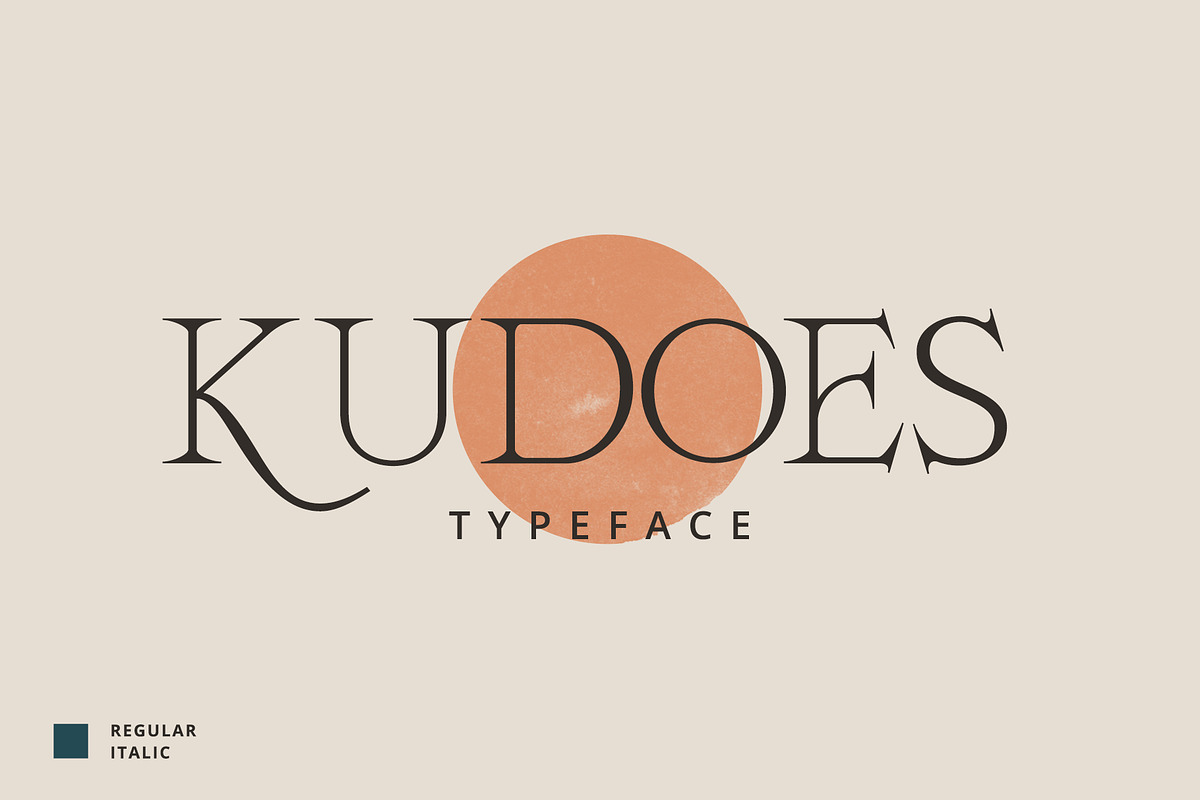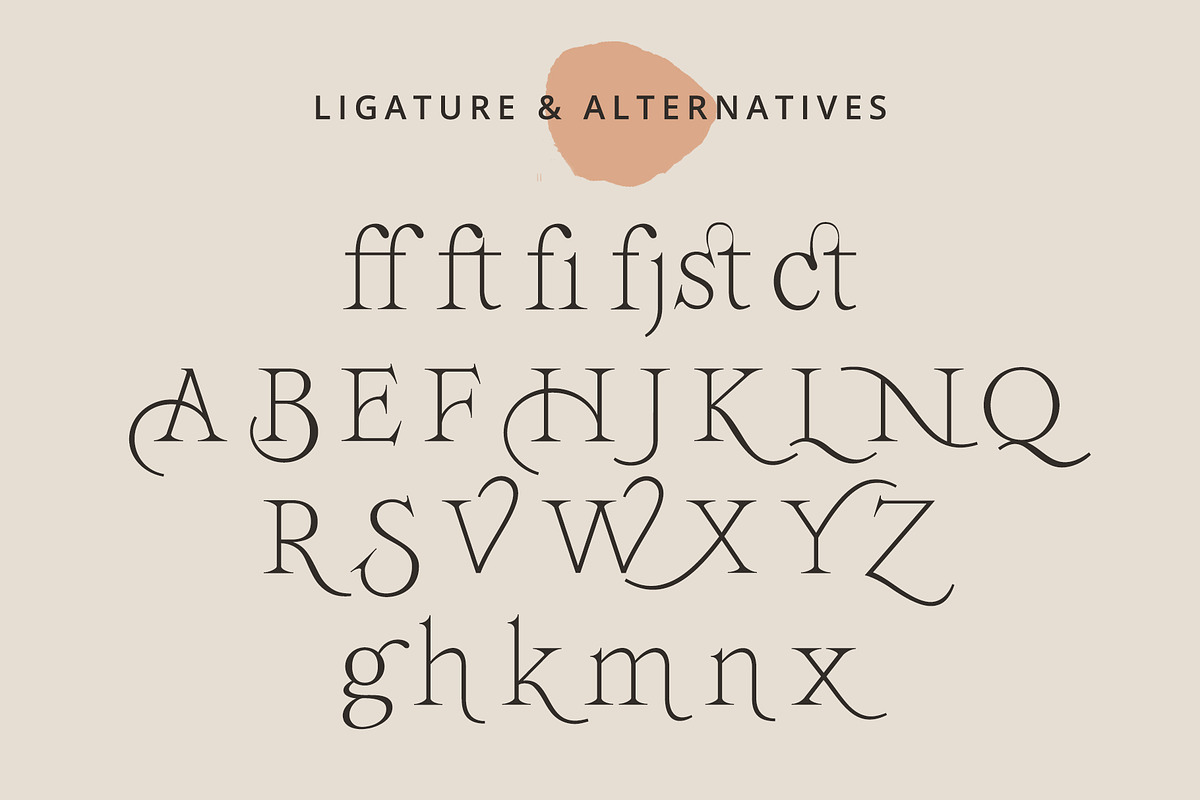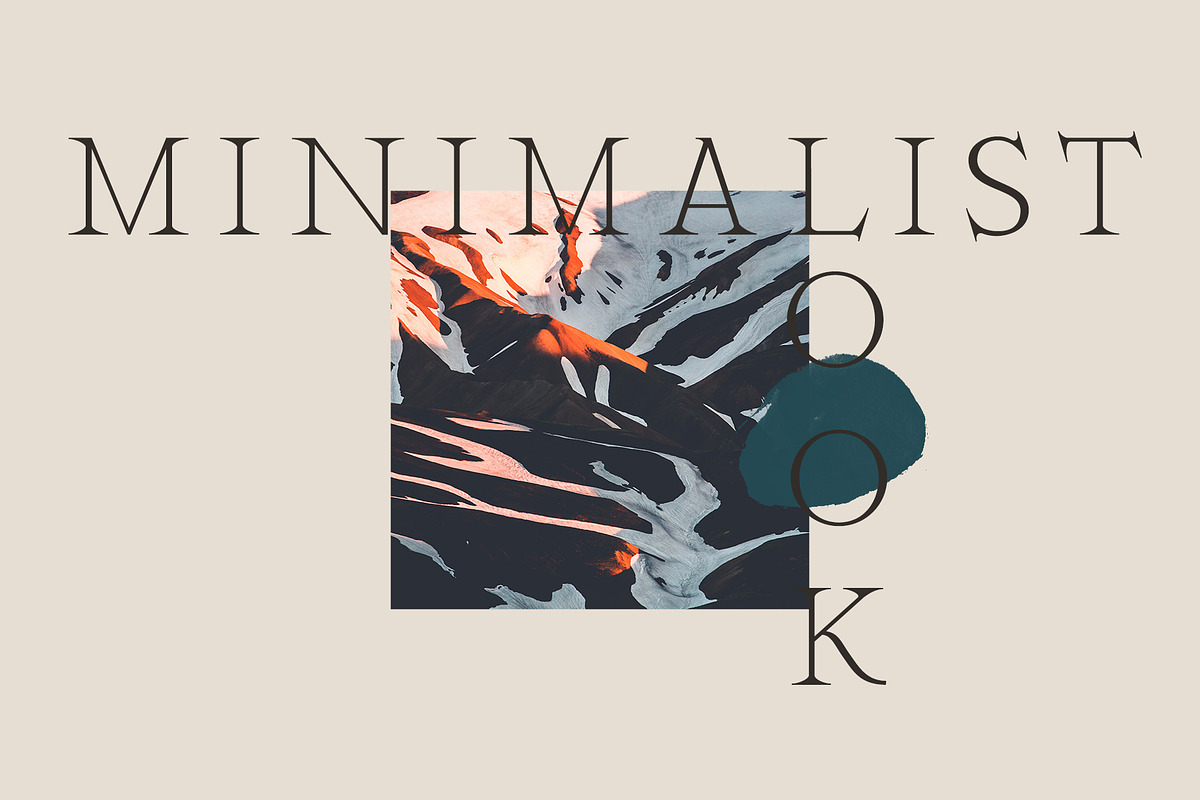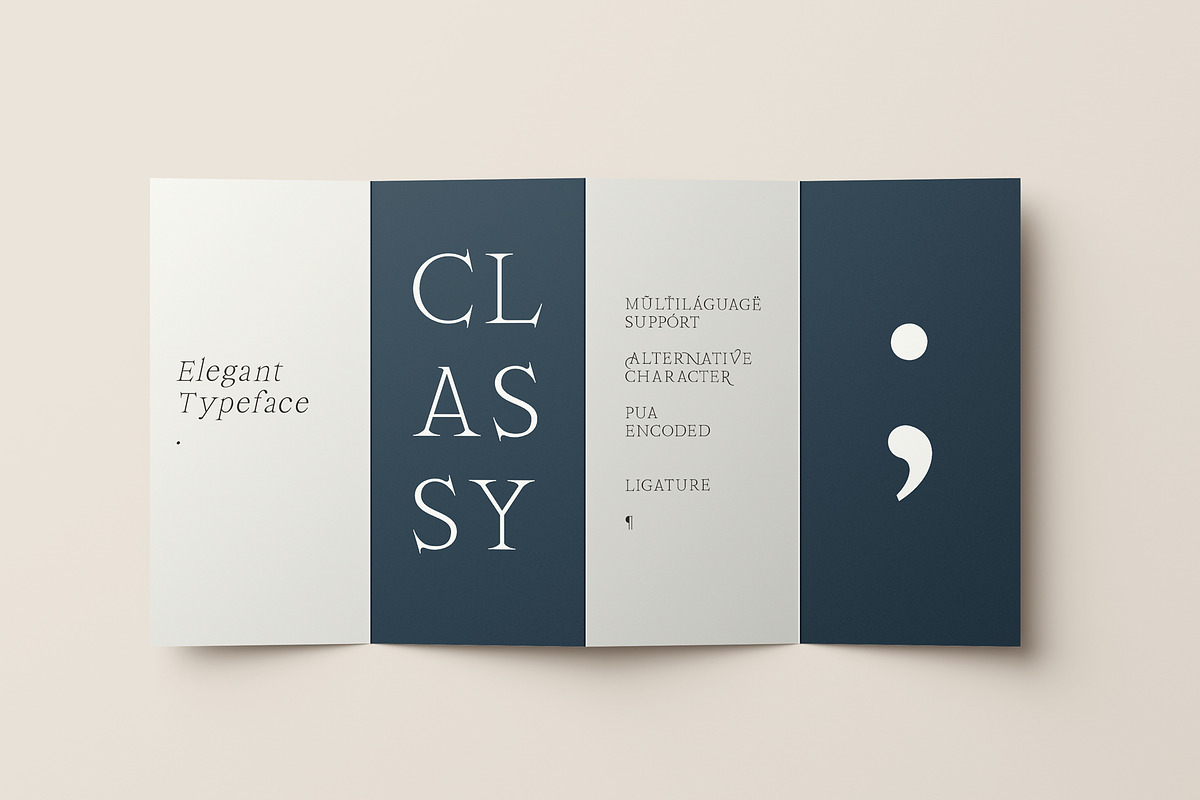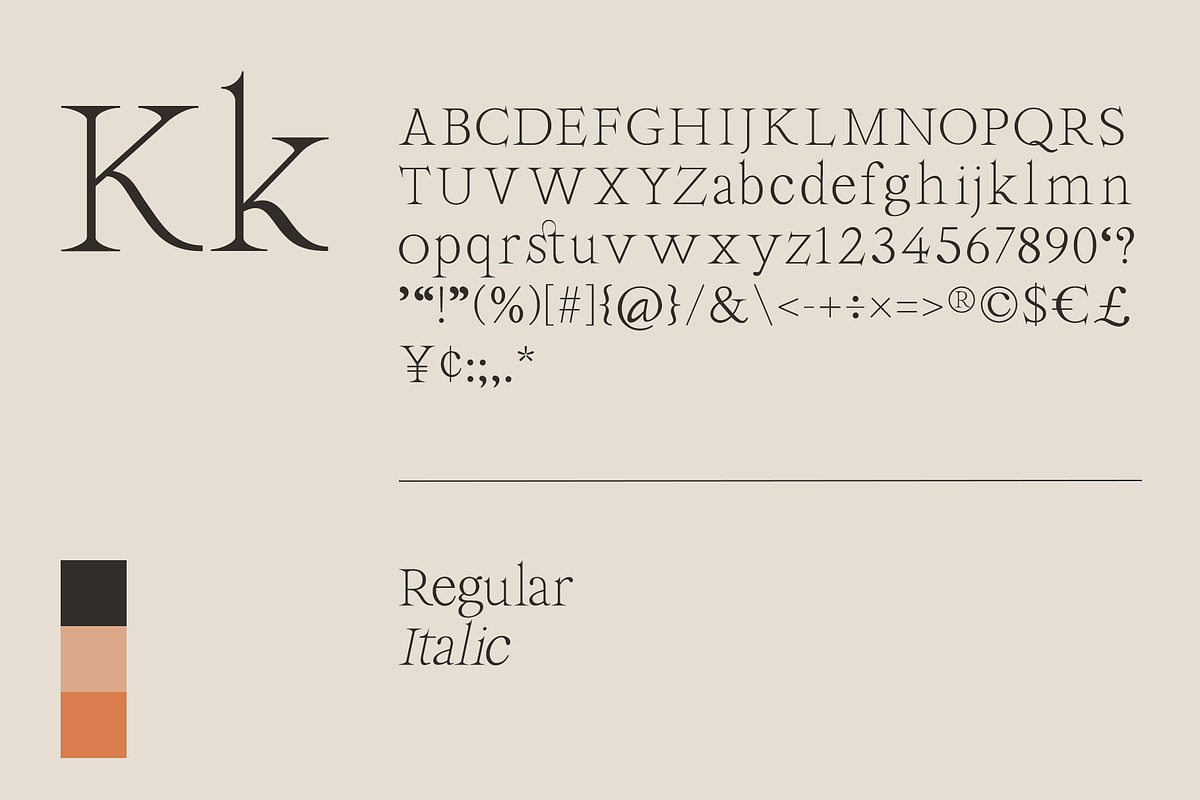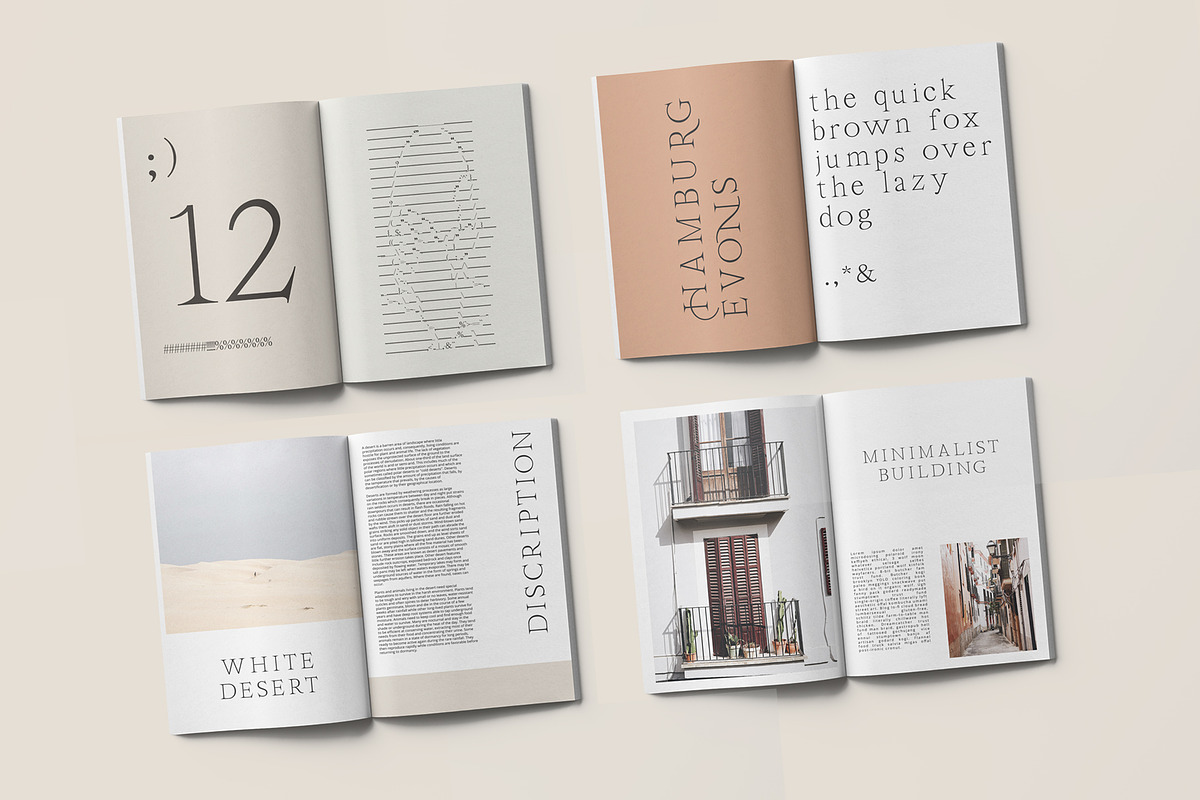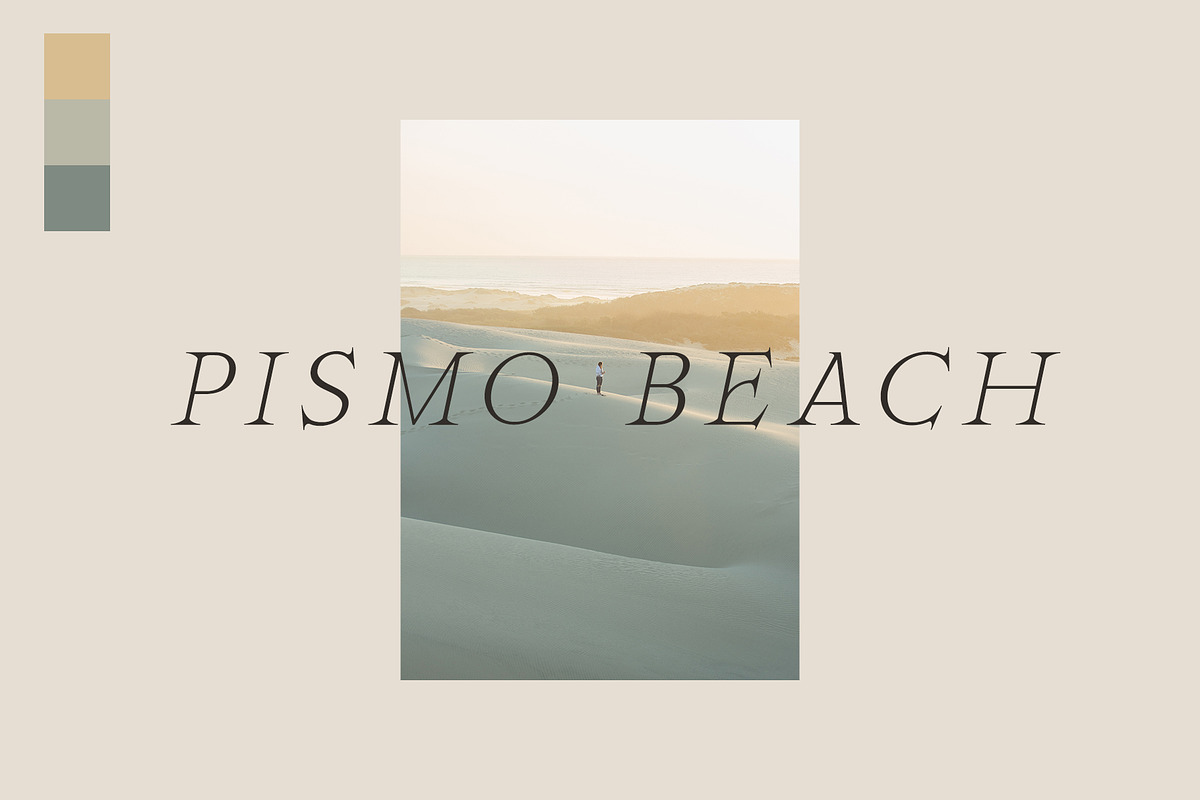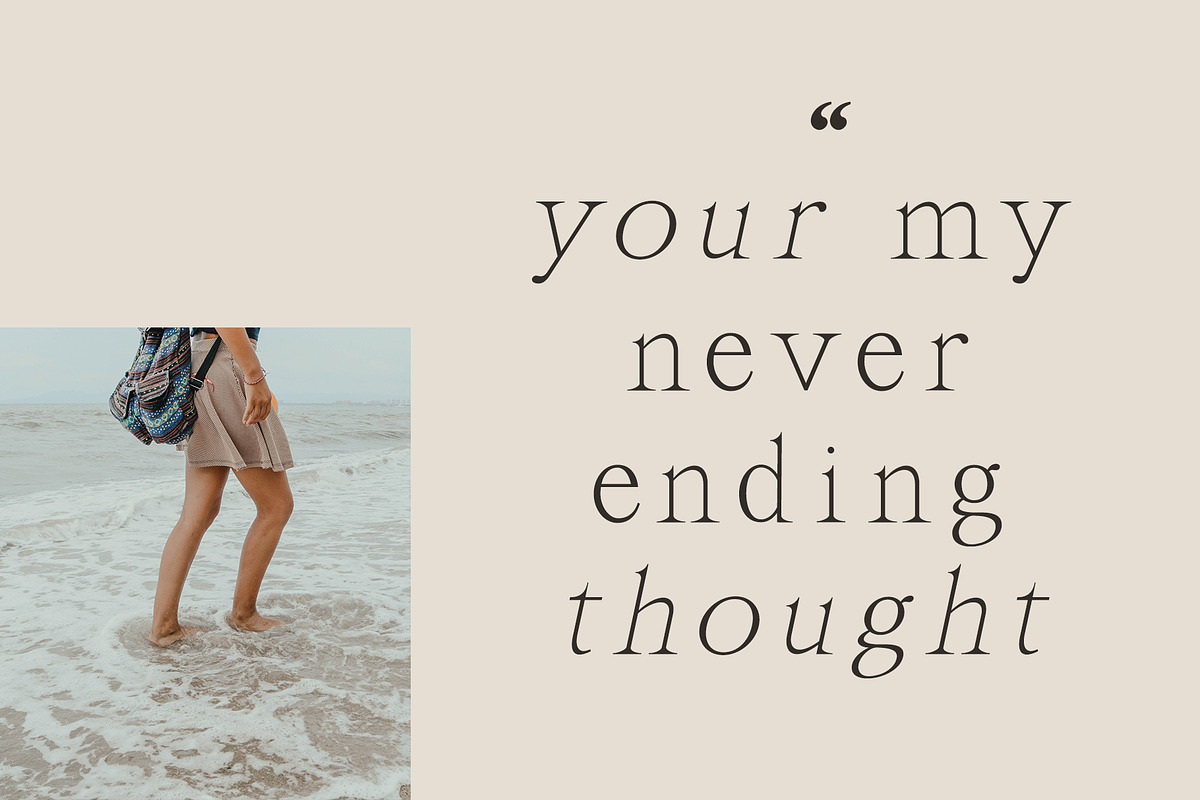
Kudoes Typeface
Kudoes typeface is a serif font that is minimalist, modern , classy, and looks elegant.designed thin and looks elegant this font is perfect for your design needs. besides this font is supported with multi languages, alternative characters and ligature that further enhance the appearance of the font.
This font can be used as a design for branding, logos, magazines, posters, books, and other design needs.
Alternative character
multi language support
- besides this font is supported with multi languages, alternative characters and ligature that further enhance the appearance of the font.
- Kudoes Regular
- Kudoes Italic